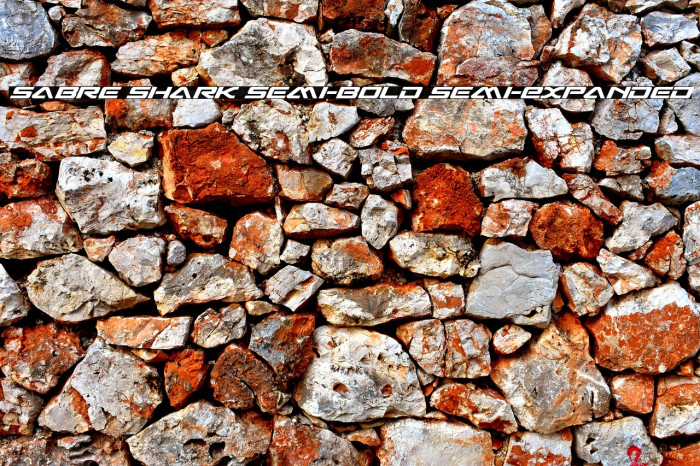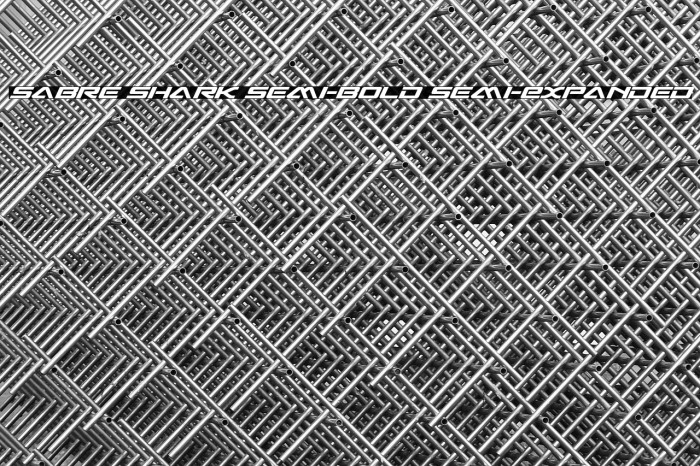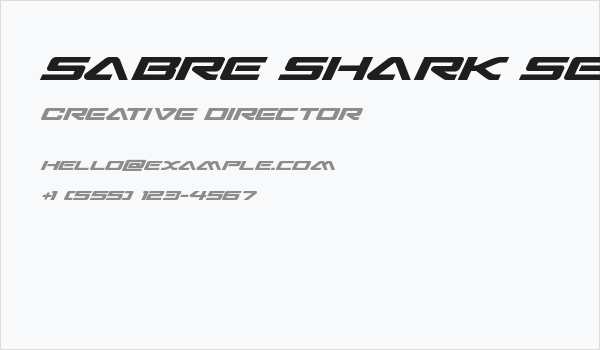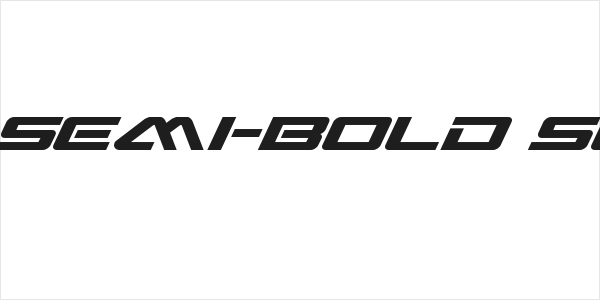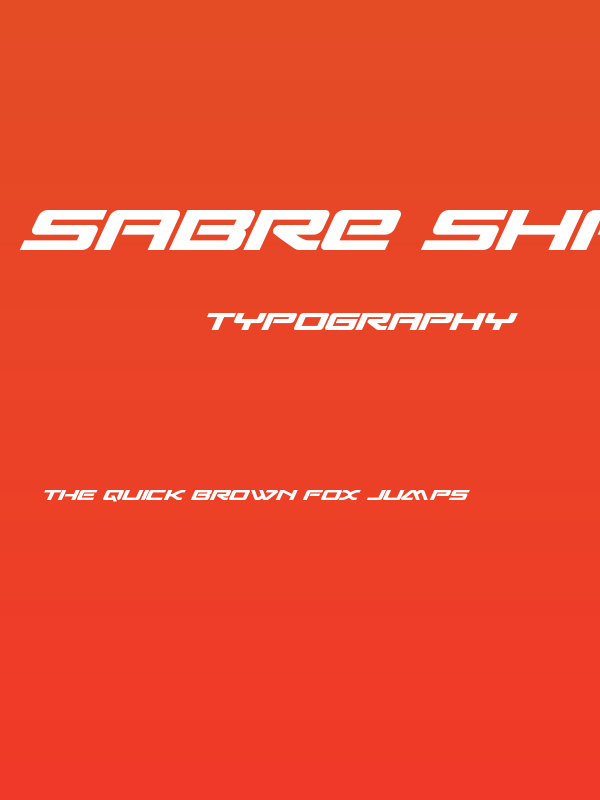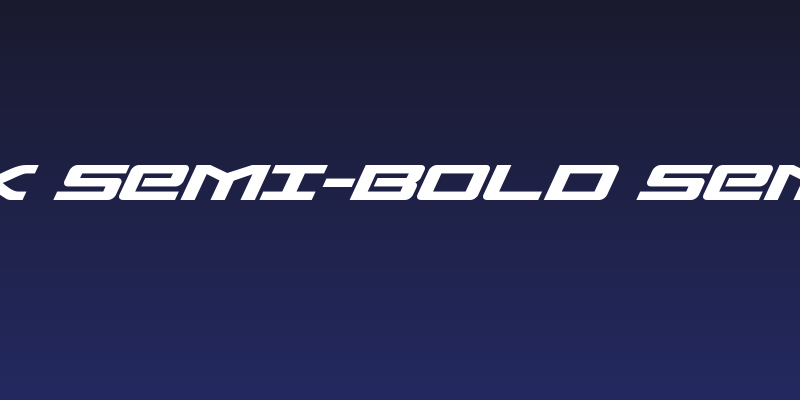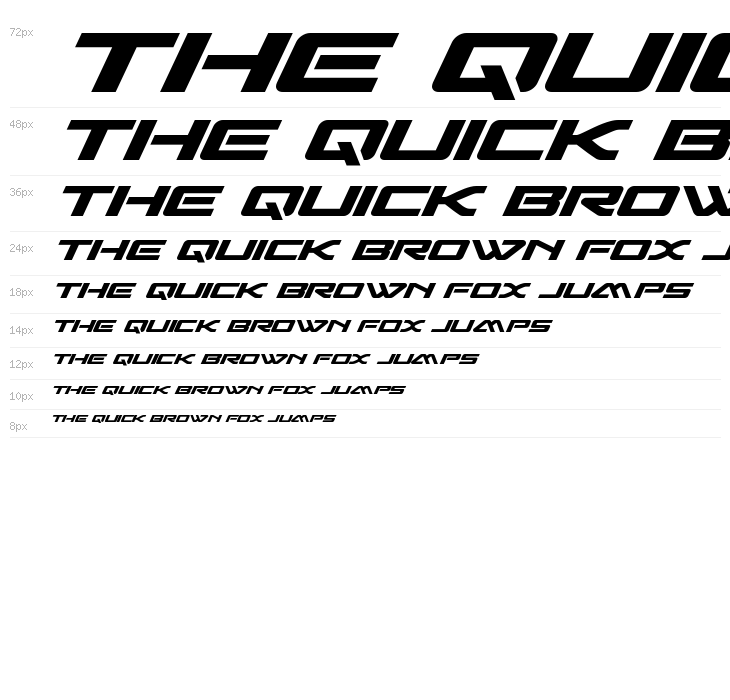
Sabre Shark Semi-Bold Semi-Expanded Font
Sabre Shark Semi-Bold Semi-Expanded Description
This font features a bold and semi-expanded style with a futuristic and angular design. The characters are sharply defined with a consistent slant, giving it a dynamic and energetic appearance. The uppercase and lowercase letters maintain a uniformity in style, while the numerals and special characters complement the overall aesthetic. The font's geometric shapes and clean lines make it suitable for modern and tech-oriented projects. Its unique style is eye-catching and memorable, making it ideal for branding and advertising purposes.
| Proposed Projects | Ideal for technology branding, sports team logos, video game titles, and futuristic-themed posters. |